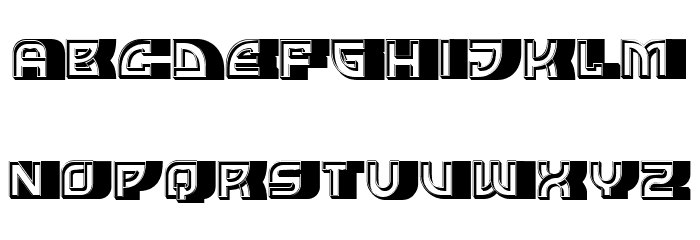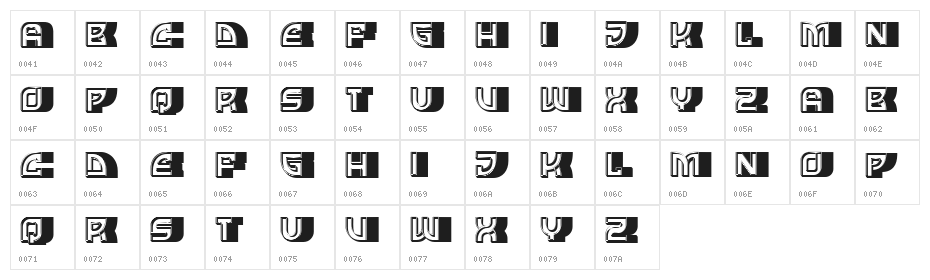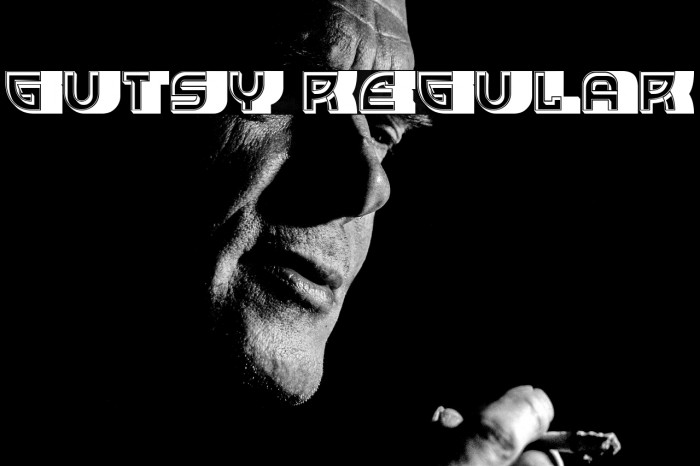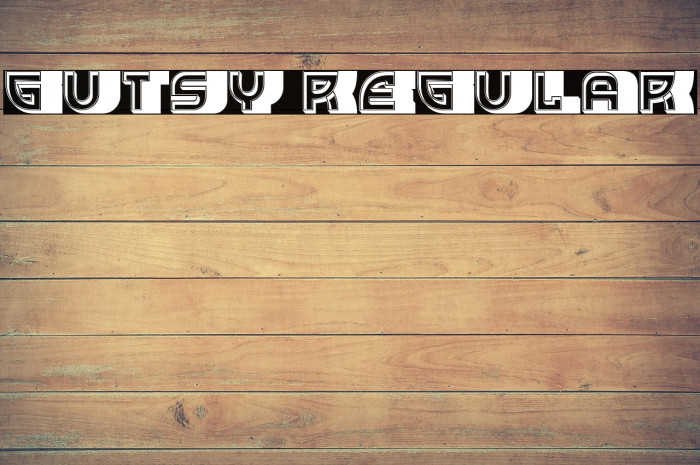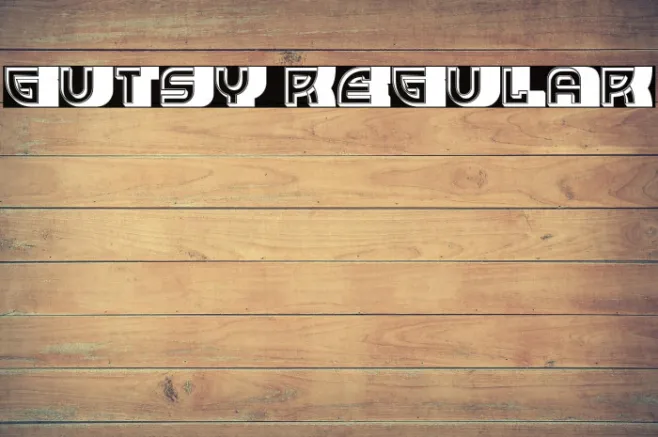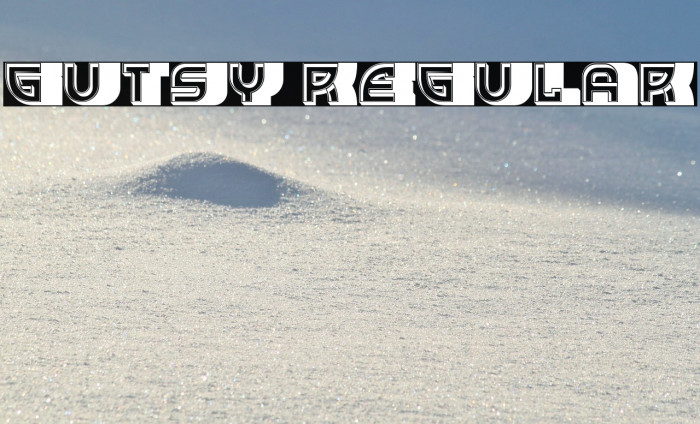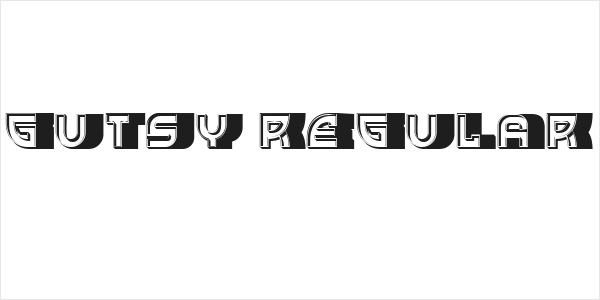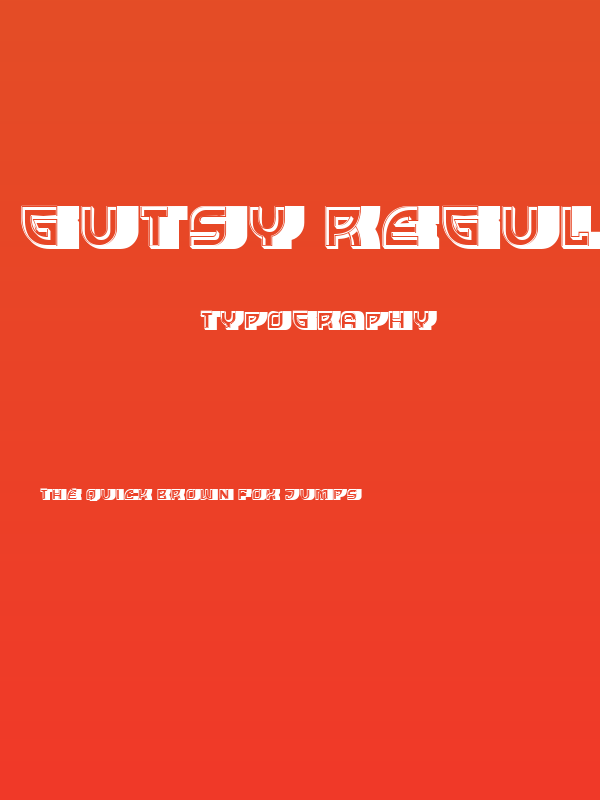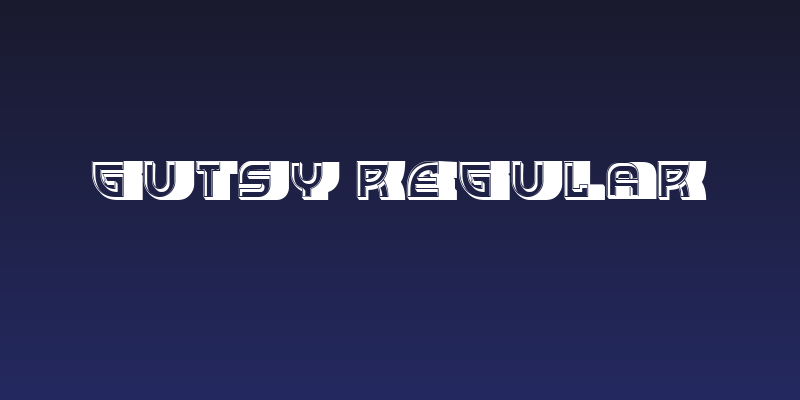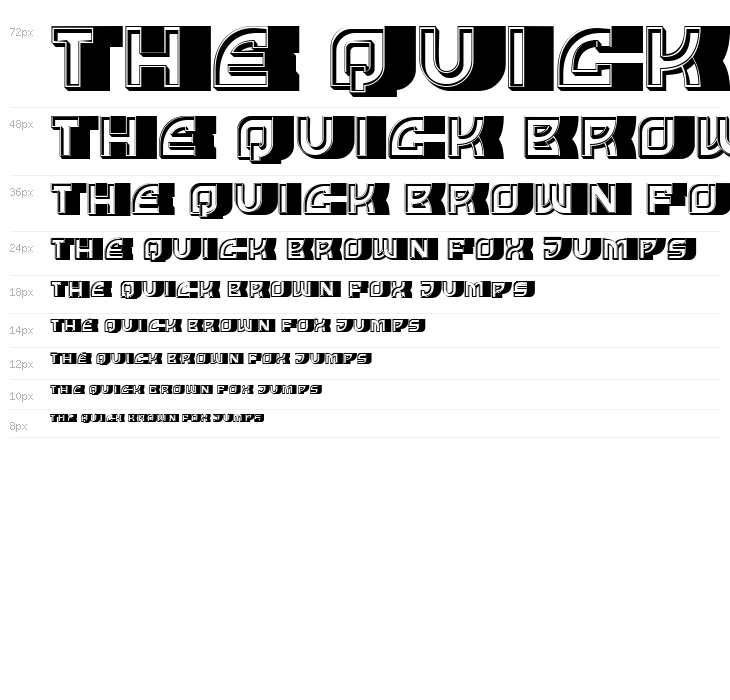
Gutsy Regular Font
Gutsy Regular Description
This font features a bold and striking design with a modern, geometric aesthetic. Each character is crafted with a unique blend of solid and outlined elements, creating a dynamic and eye-catching effect. The uppercase letters are particularly distinctive, with sharp angles and a sense of movement. The lowercase letters maintain the same bold style, ensuring consistency across the typeface. The numbers and special characters are equally bold and well-defined, making them suitable for a variety of design applications. The overall look is both futuristic and retro, offering versatility for creative projects.
| Proposed Projects | Ideal for branding, posters, album covers, and any project requiring a bold, modern aesthetic. |